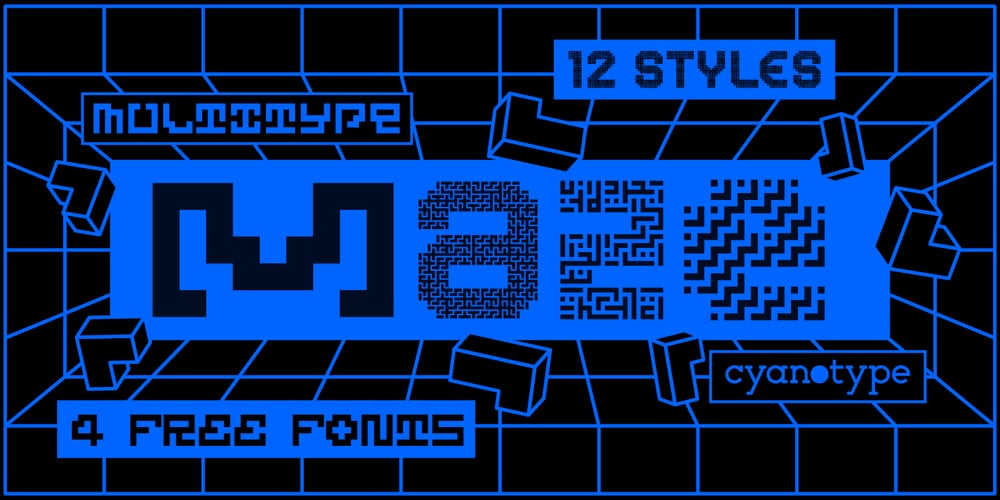
MultiType Maze Font Family was designed by Damián Guerrero and published by Cyanotype. MultiType Maze contains 12 styles and family package options. MultiType Maze, an all caps typeface focused in display purposes. 9 styles with an intricate look.This is the fourth release of an expanding multiverse of mixable fonts. The whole family of typefaces has been designed to work at big sizes and display purposes such as branding, headlines, thumbnails, posters and animations. You can swap between the three additional alternate sets through all the styles to add diversity to your composition, even in Cyrillic.MultiType Maze is inspired in labyrinths and geometric patterns. Have fun mixing all the styles in your projects.